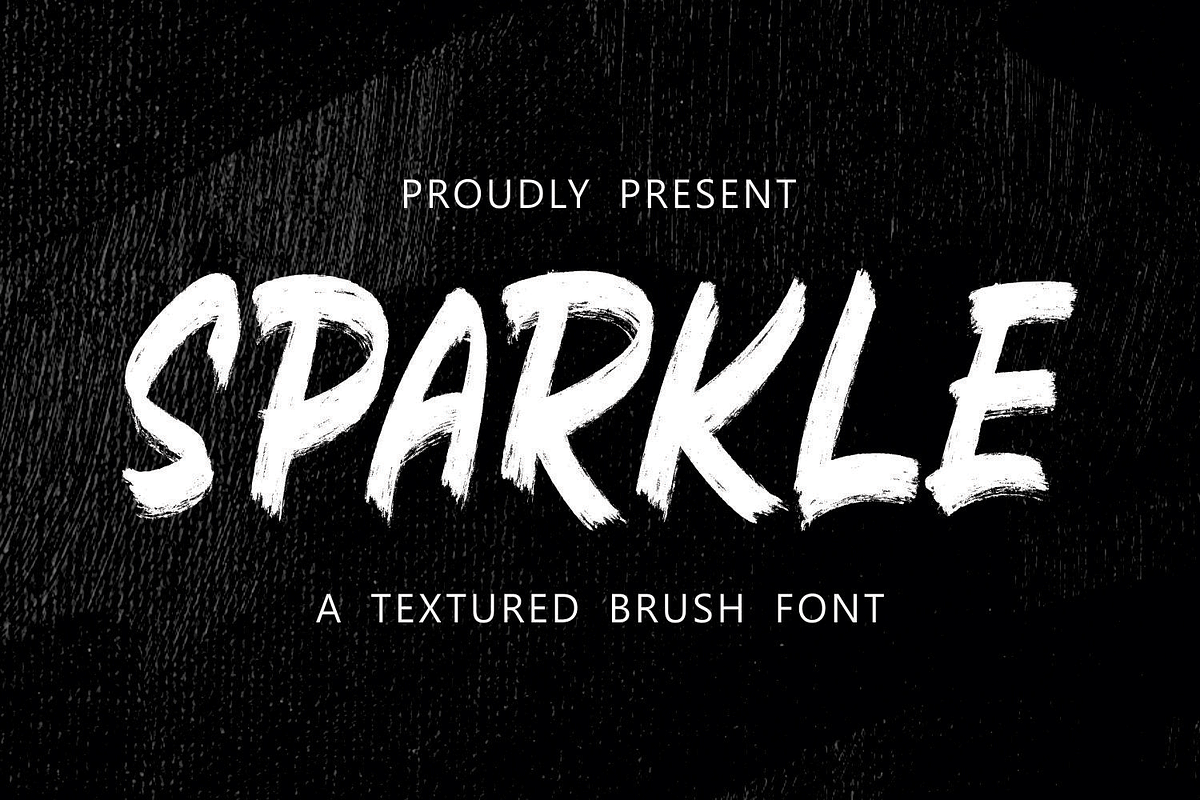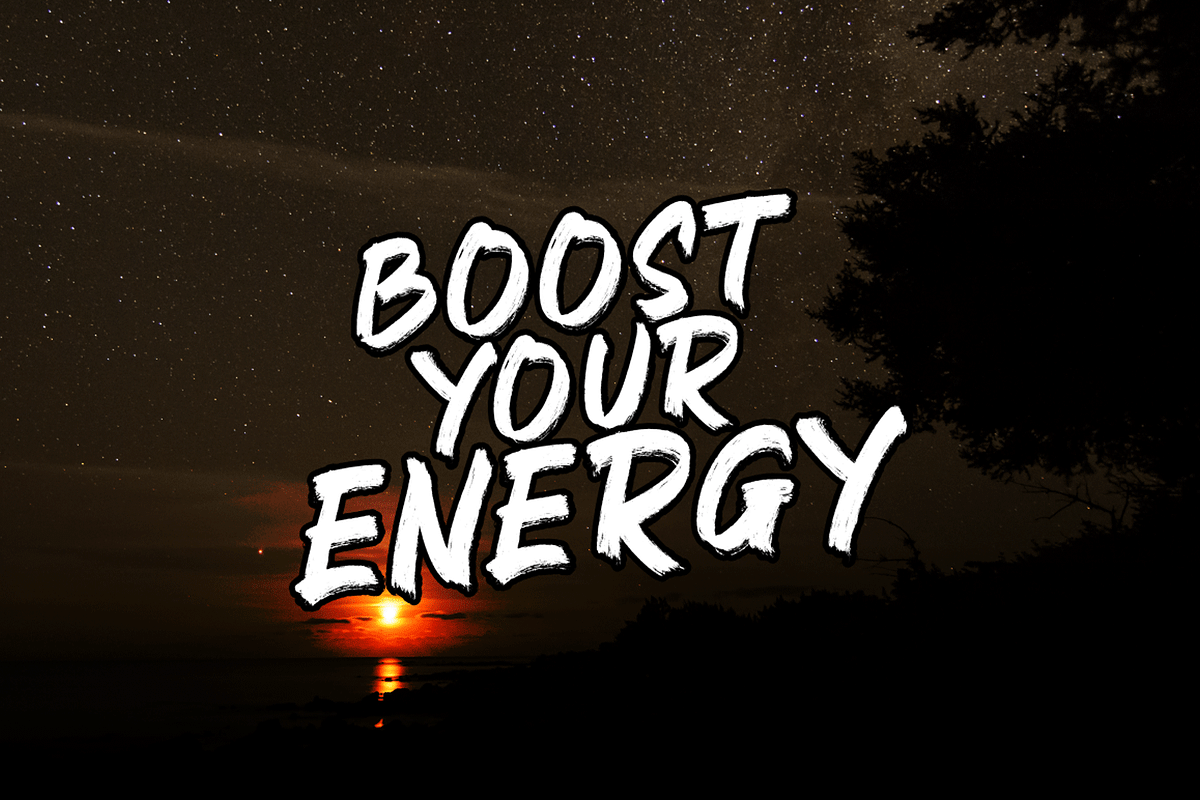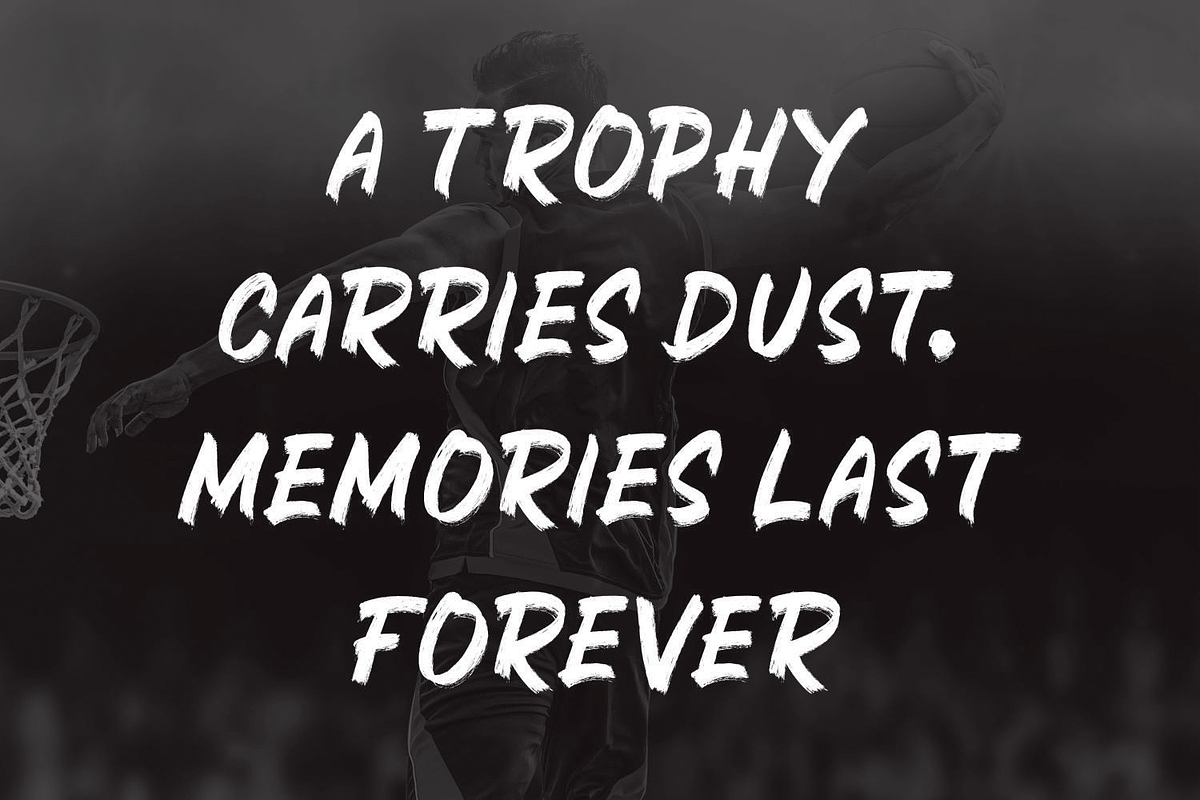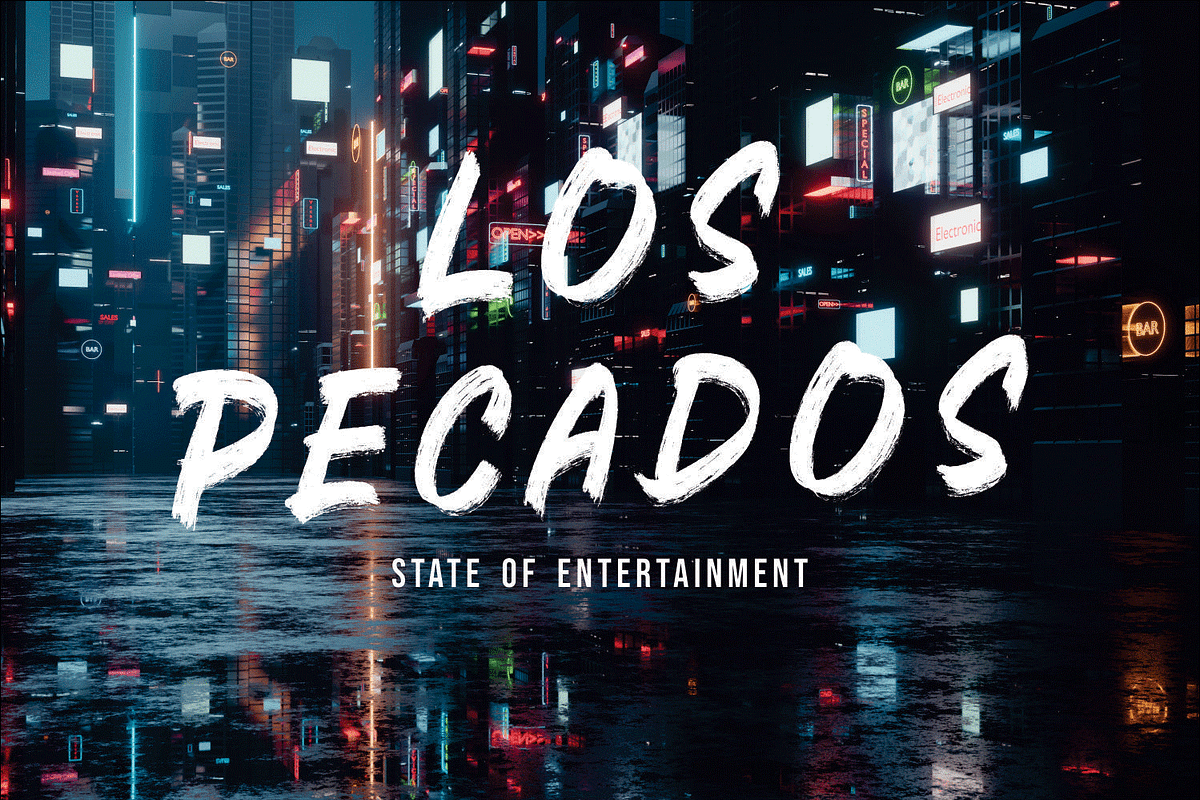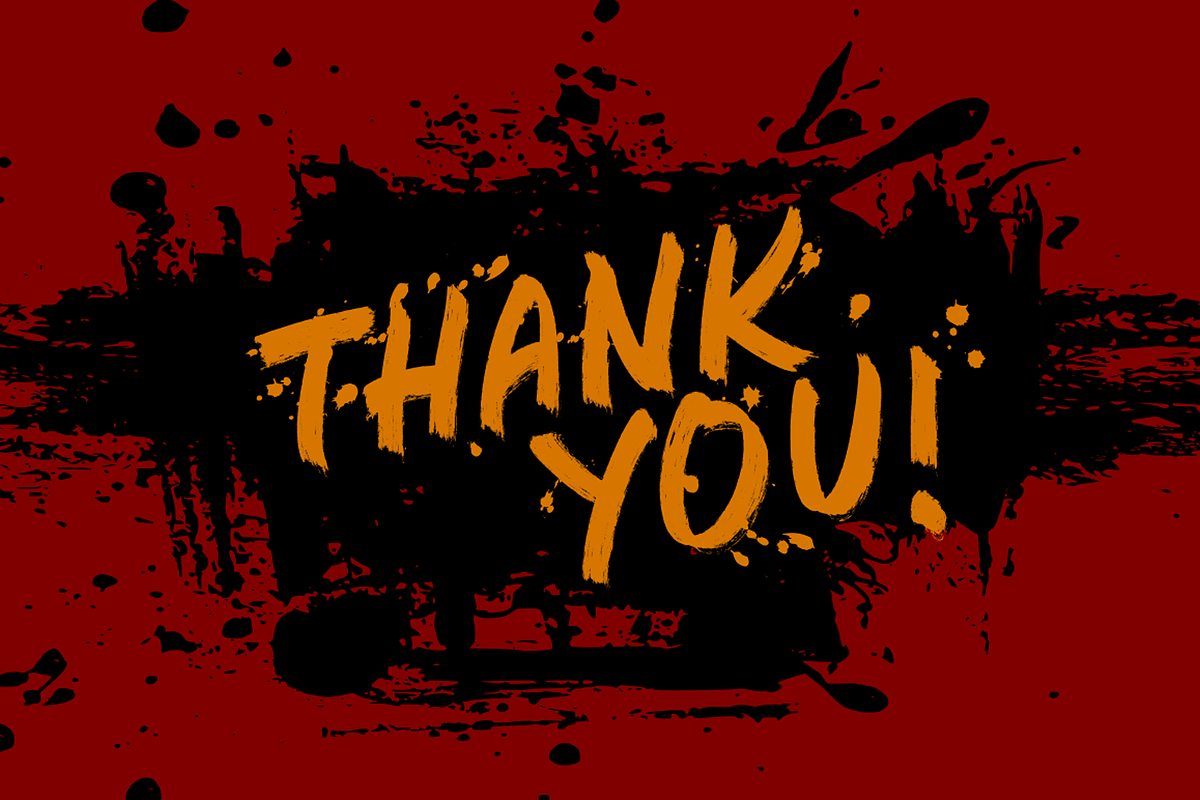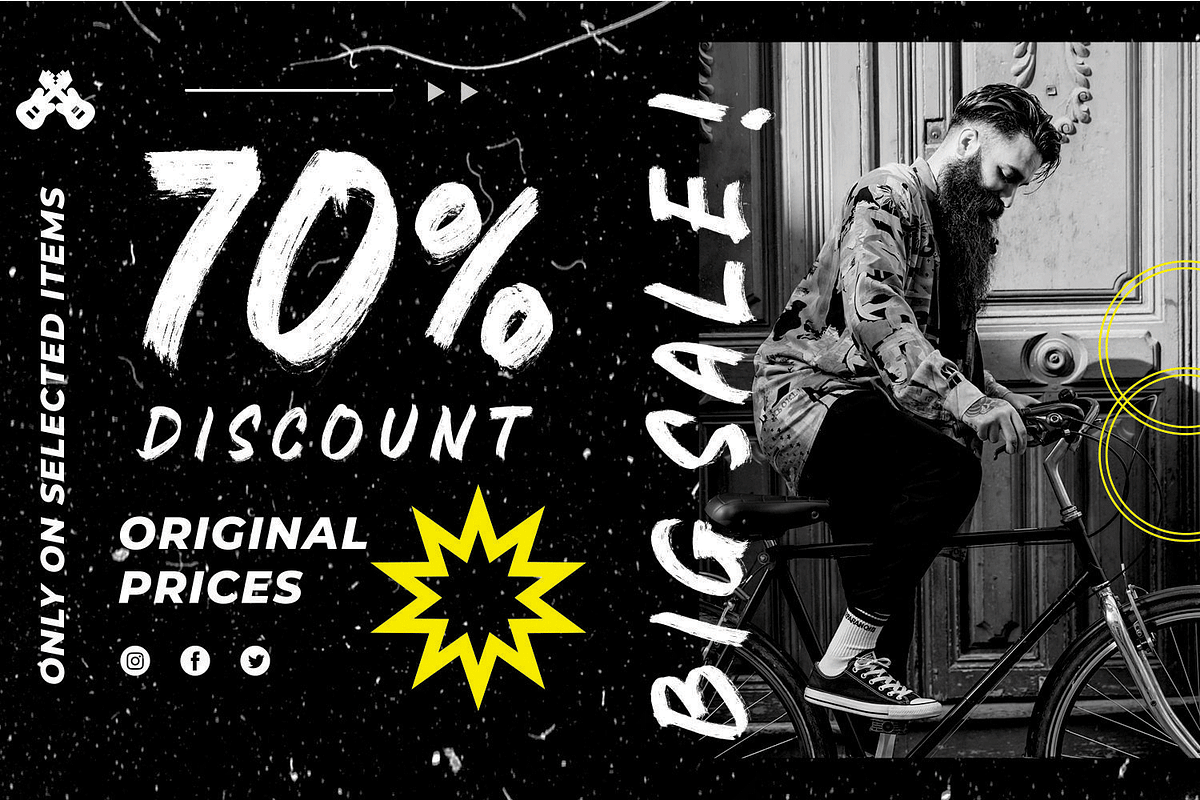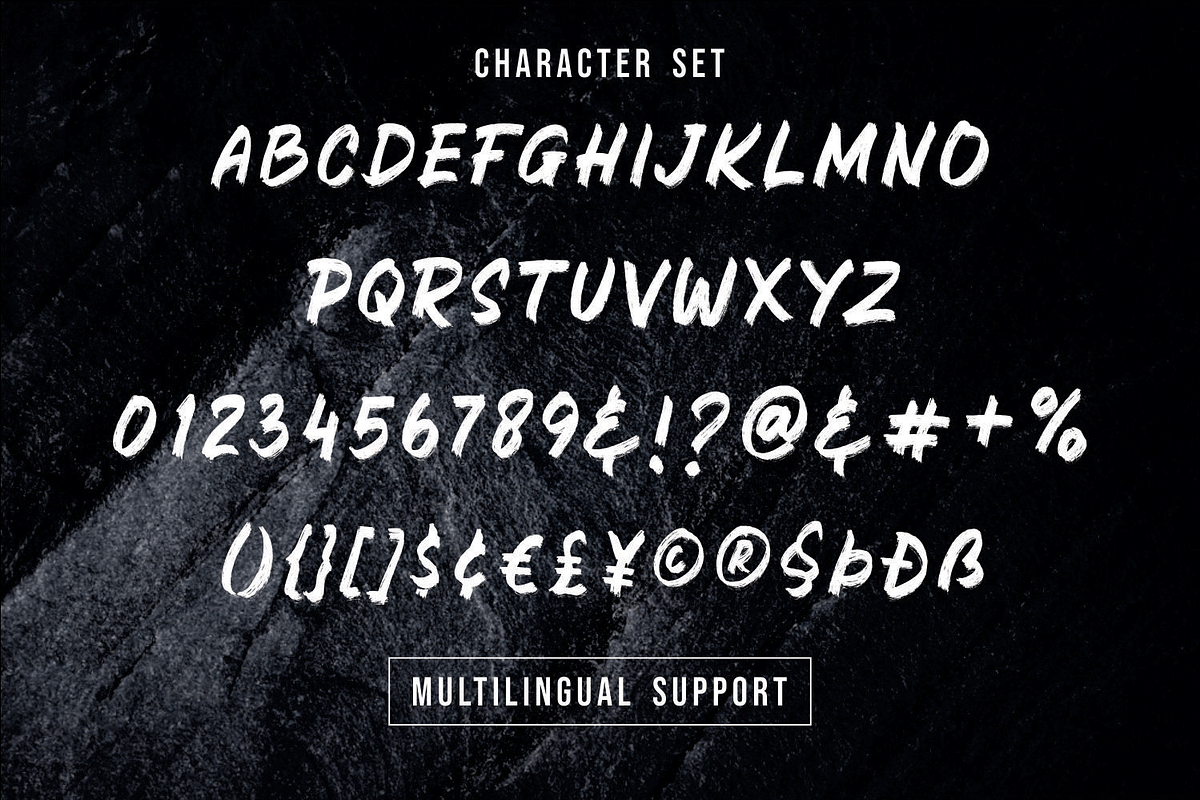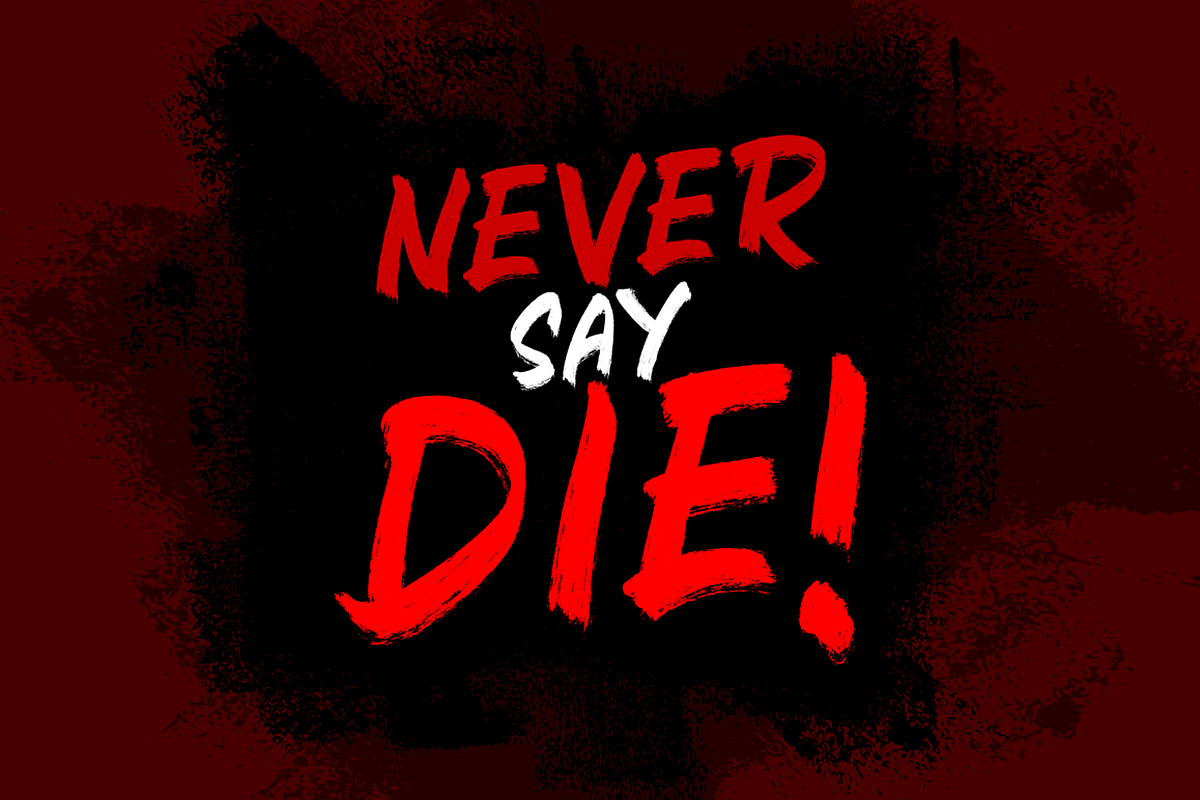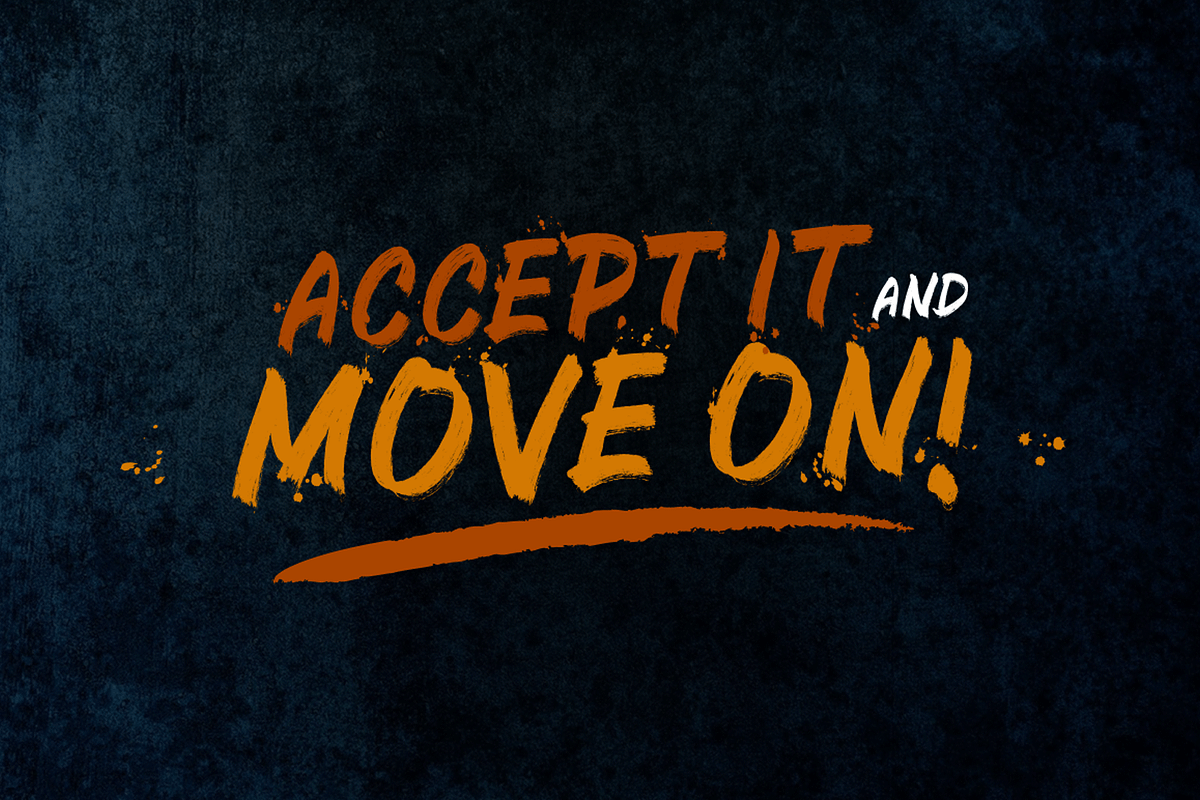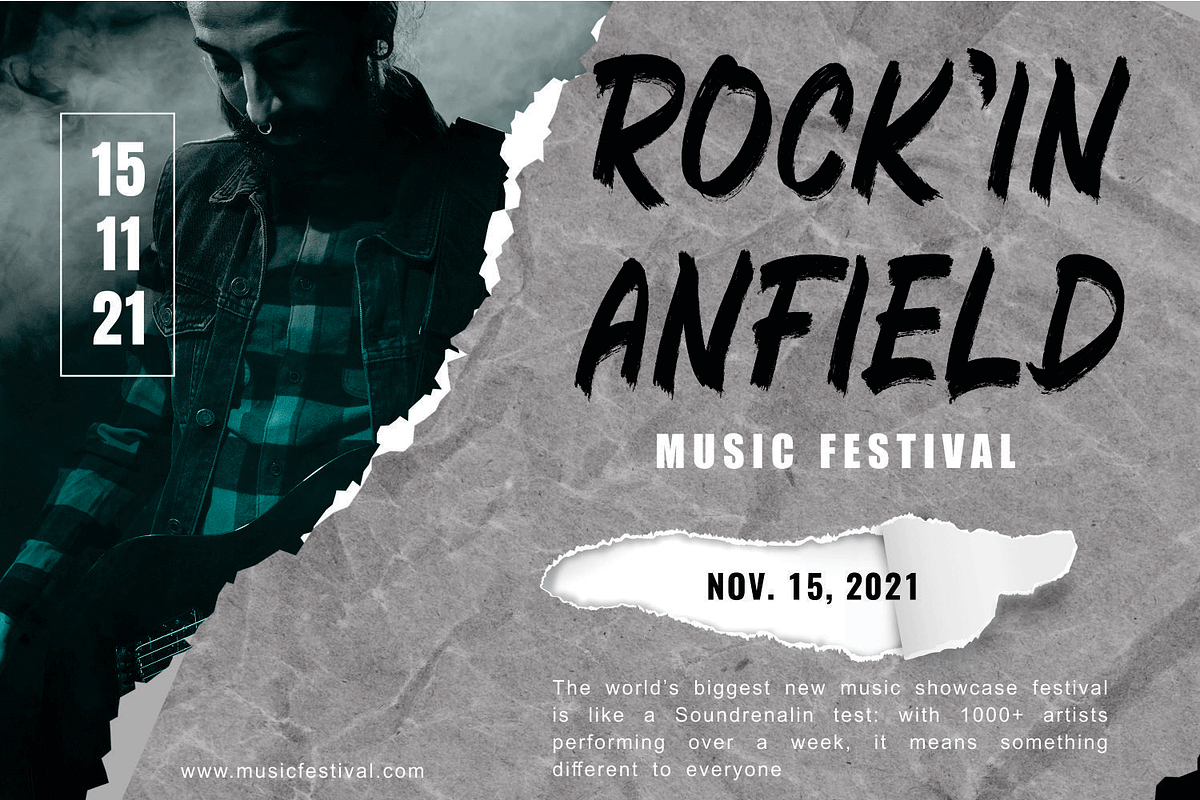
SPARKLE
Get summer ready with the SPARKLE - a textured brush font
It is bold, tightly spaced, and retains all of the brush imperfections. It has a nice contrast with opaque parts and transparent ones. It will give your work an authentic and realistic paintbrush look! It is a casual, fun display font, created by using Procreate. It has an urban and trendy feel and it will most definitely fit a wide range of designs.
This font is perfect for sport flyer, music events, black Friday flyers, discount banners, brand announcements, packaging, quotes, branding, advertisements, blogs, logos, invitations, and more! This font is PUA encoded which means you can access all of the stunning glyphs and swashes with ease!